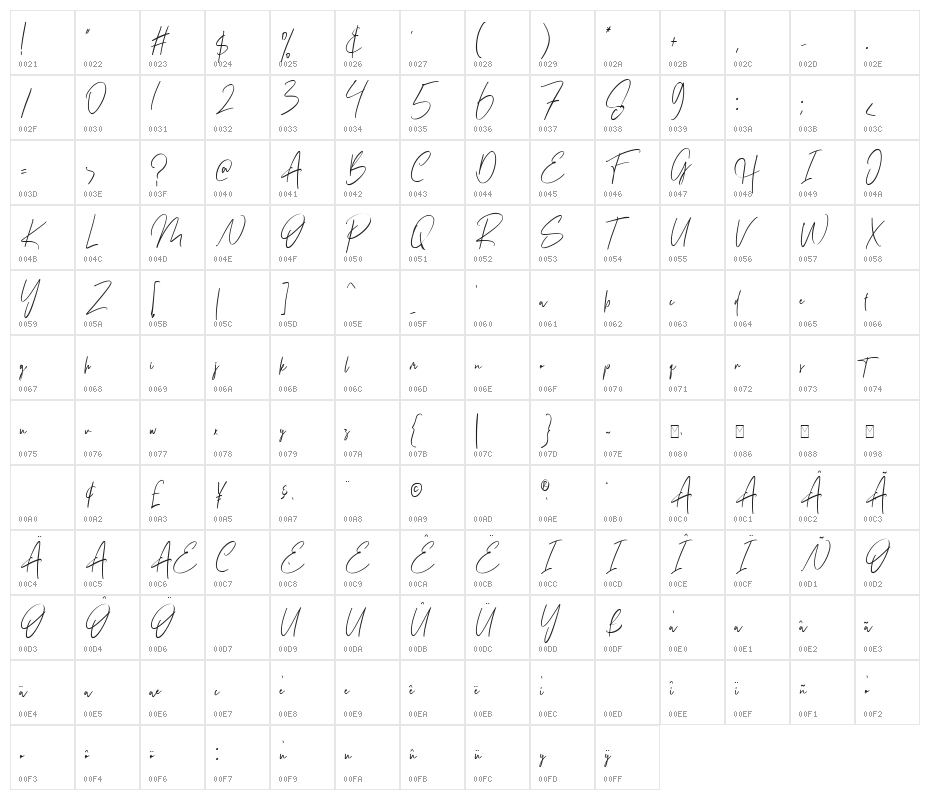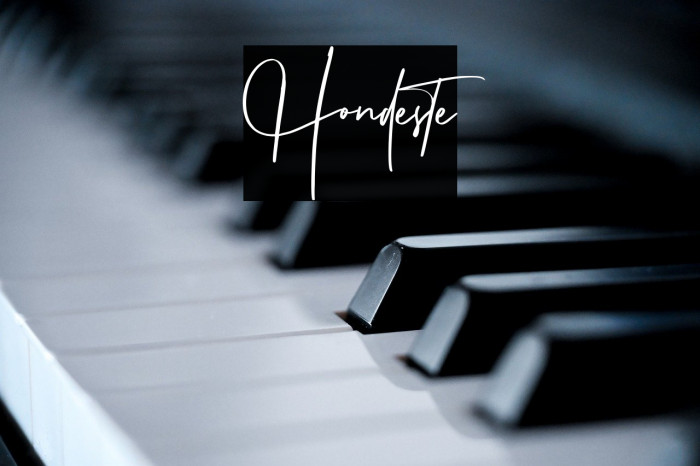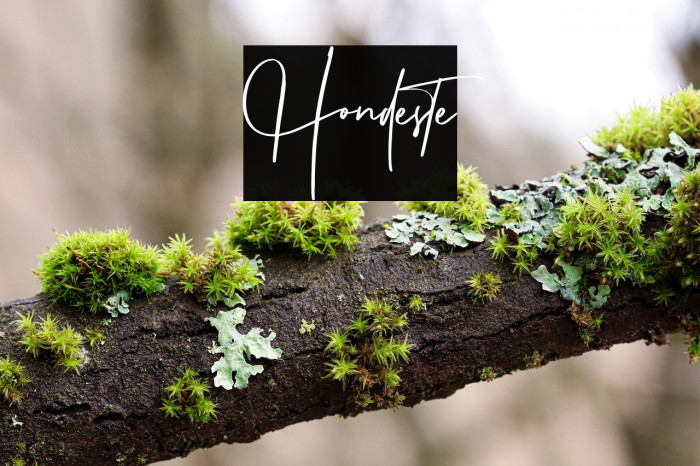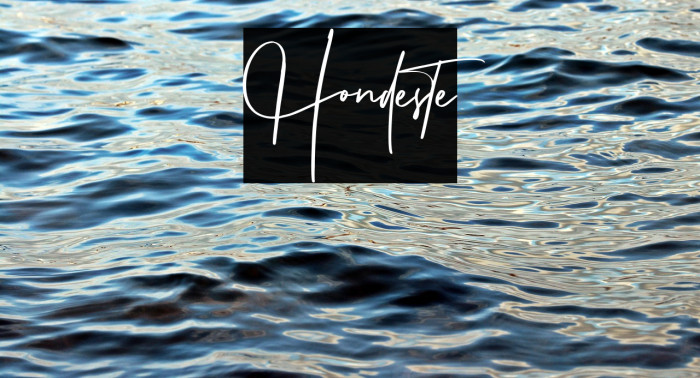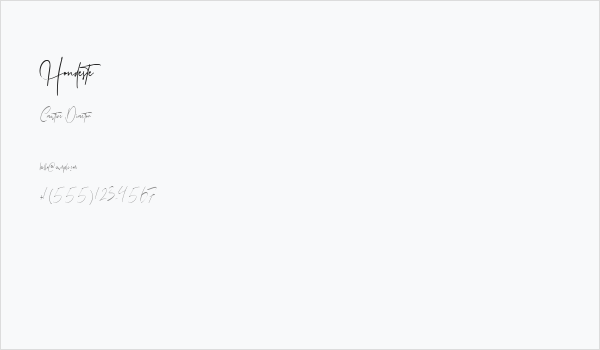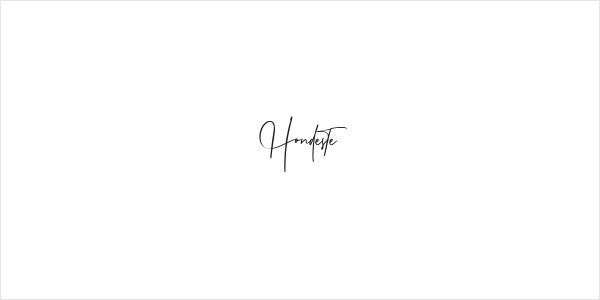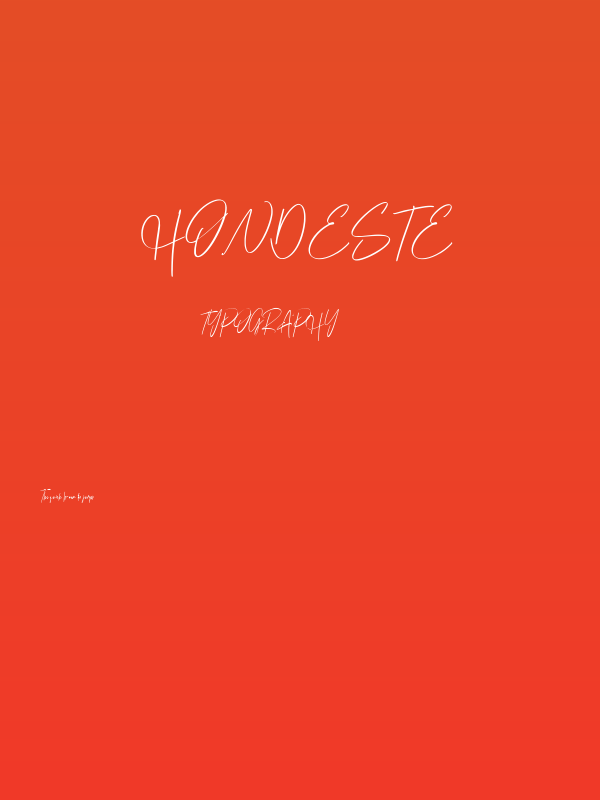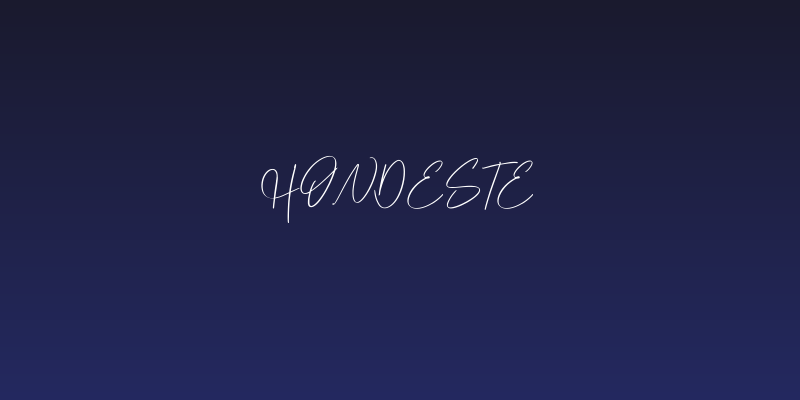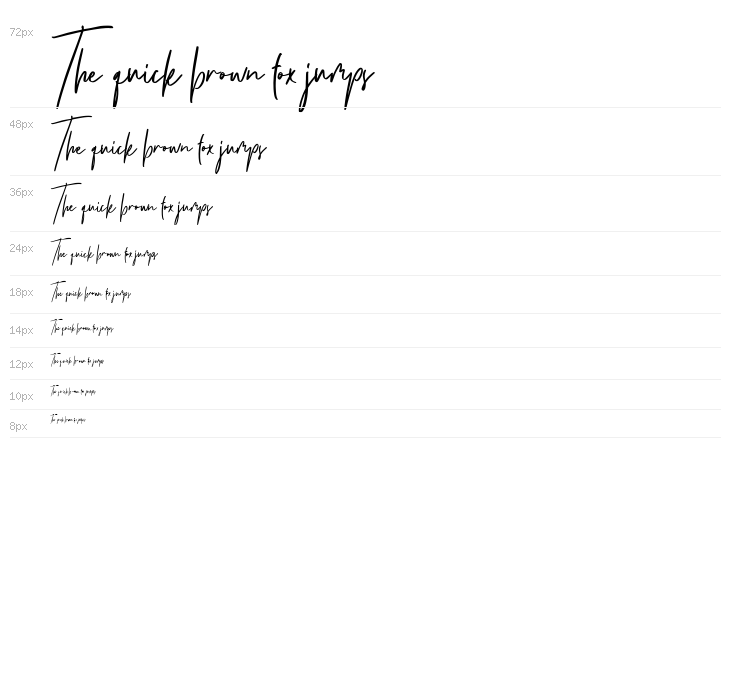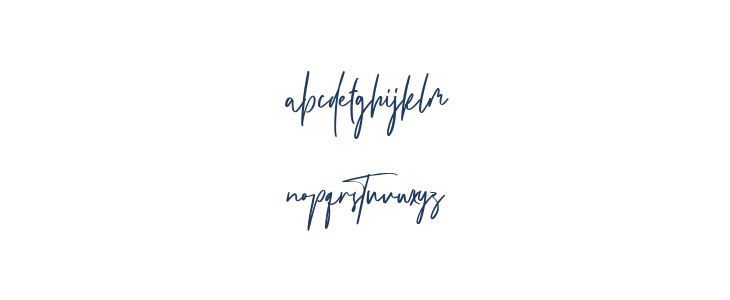
Hondeste Font
Hondeste Description
This font features a dynamic and expressive handwritten style, characterized by its fluid and flowing letterforms. The strokes are thin and elegant, giving it a sense of sophistication and grace. The uppercase letters are tall and slightly slanted, while the lowercase letters maintain a consistent rhythm with a playful touch. The numerals are distinct and maintain the same handwritten aesthetic, ensuring readability. Special characters are seamlessly integrated, adding versatility to the font. Overall, this font exudes a personal and artistic flair, making it suitable for creative and expressive projects.
| Proposed Projects | Ideal for wedding invitations, personal branding, greeting cards, and artistic projects. |